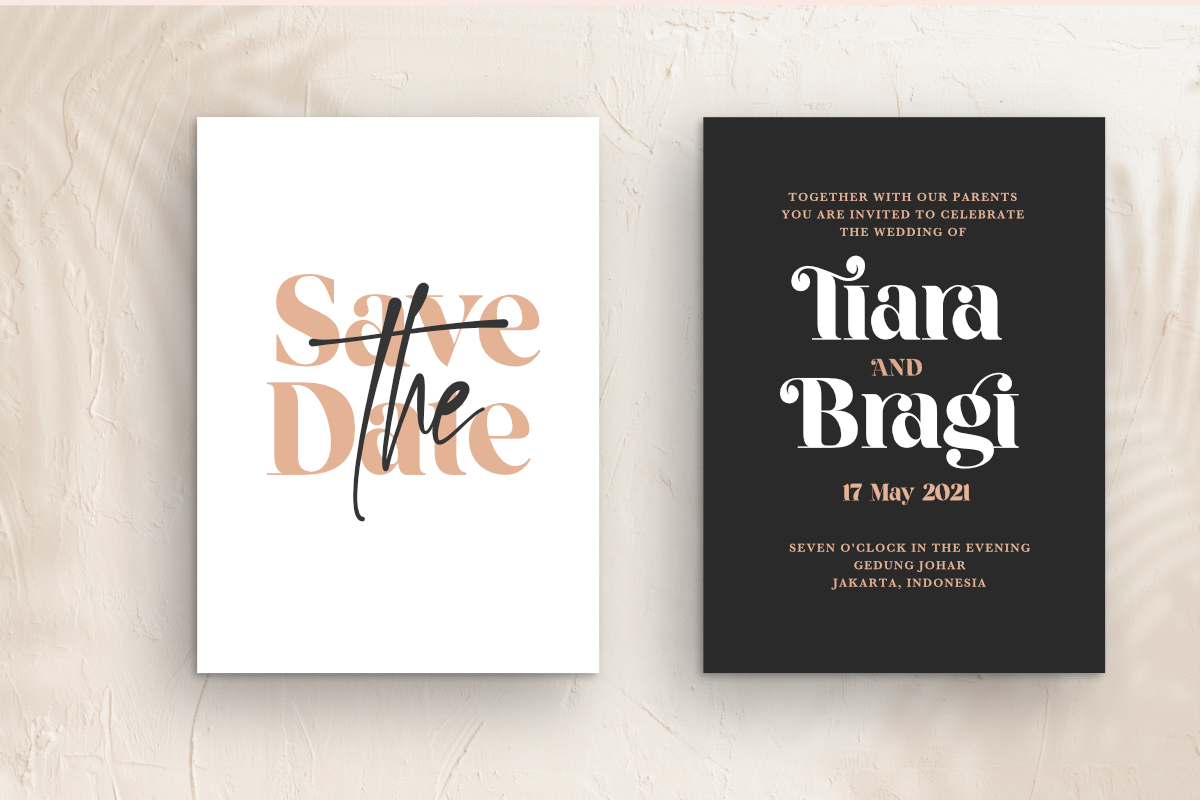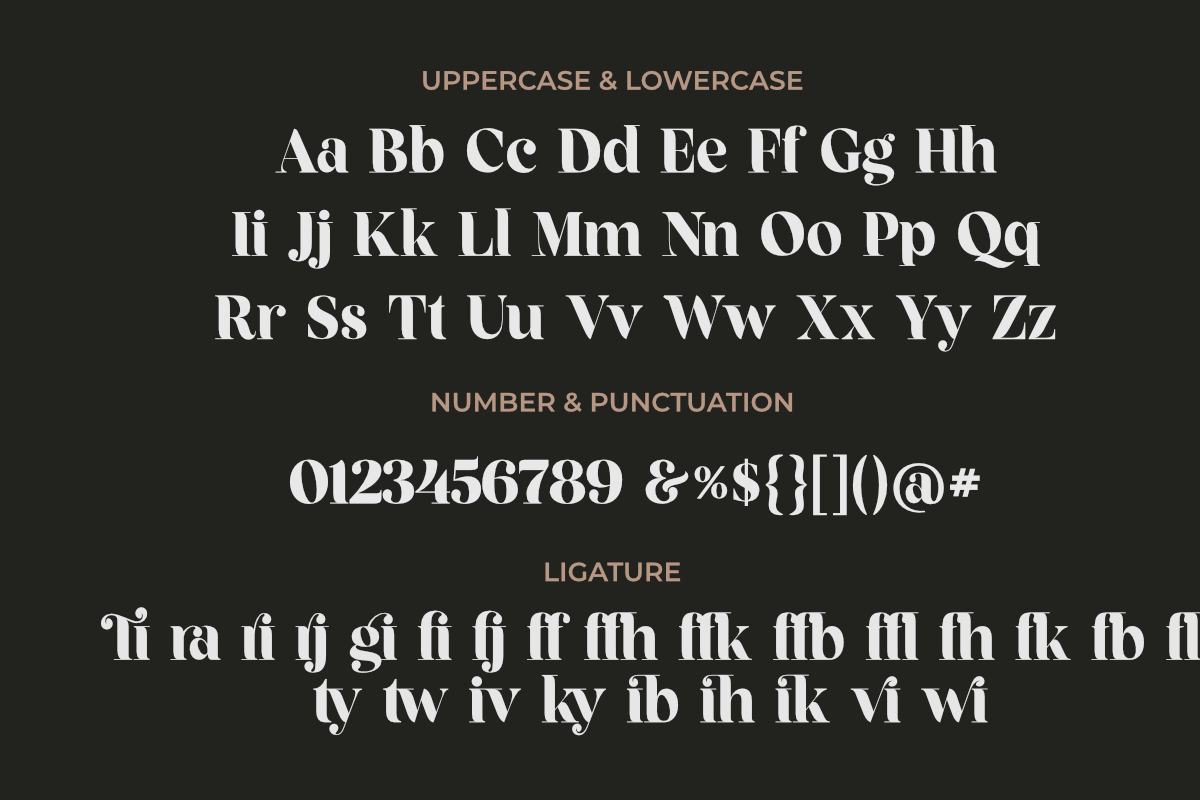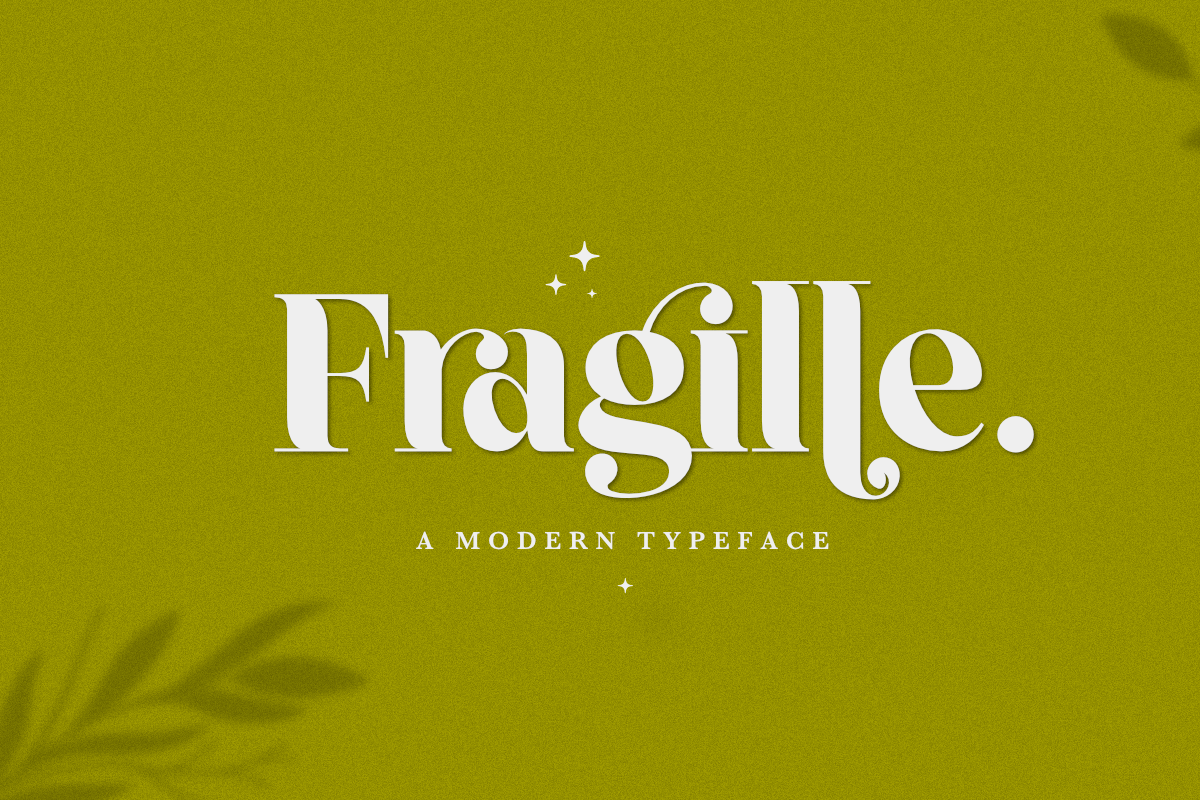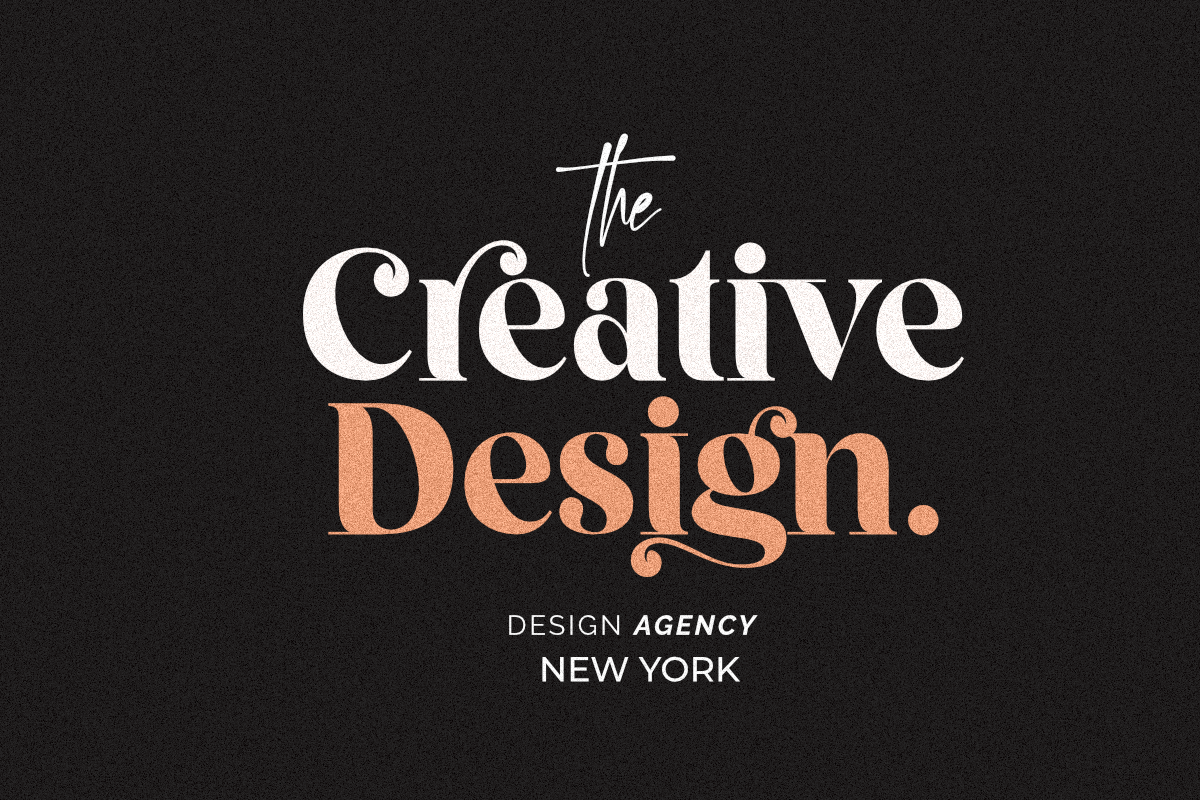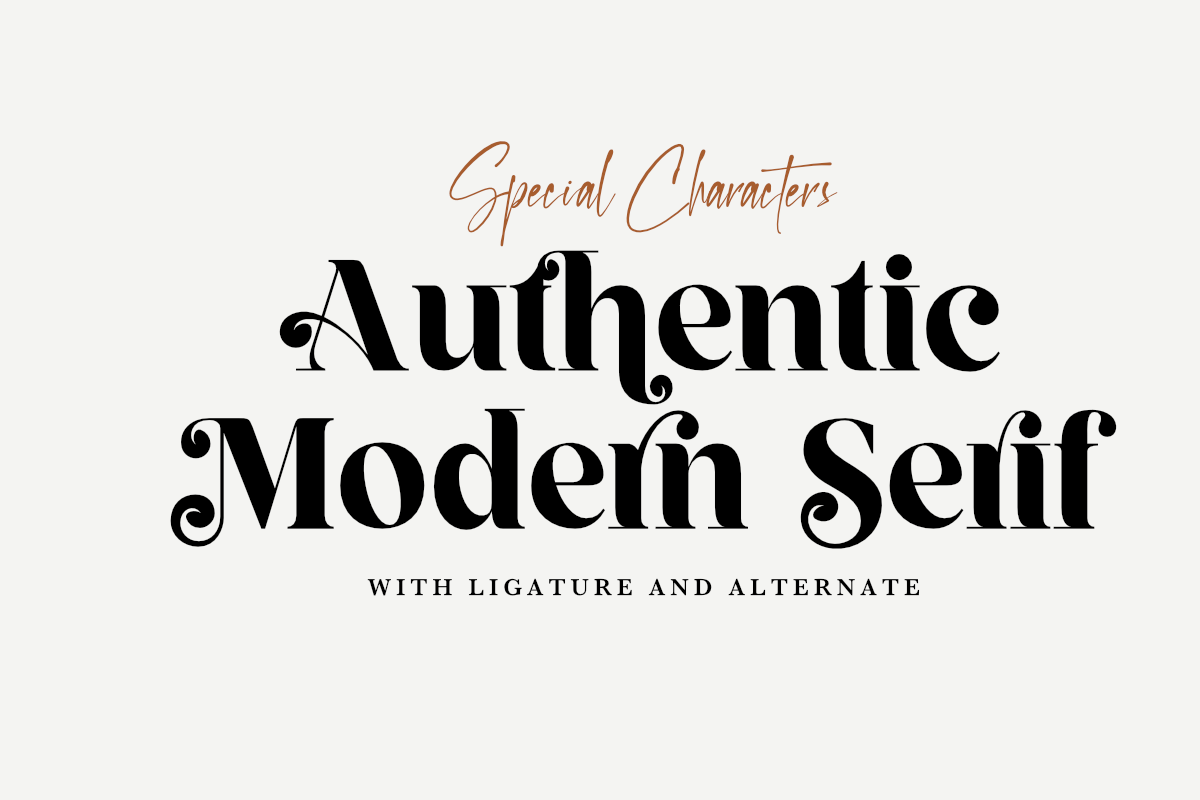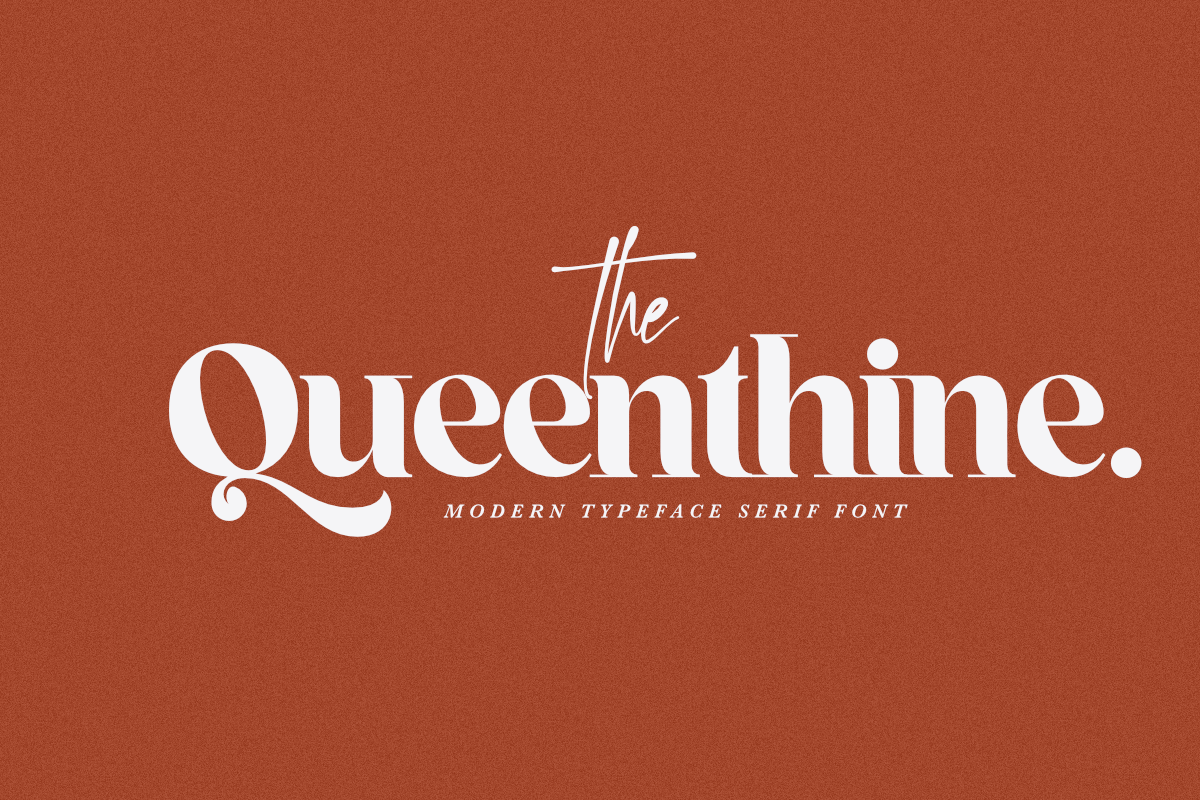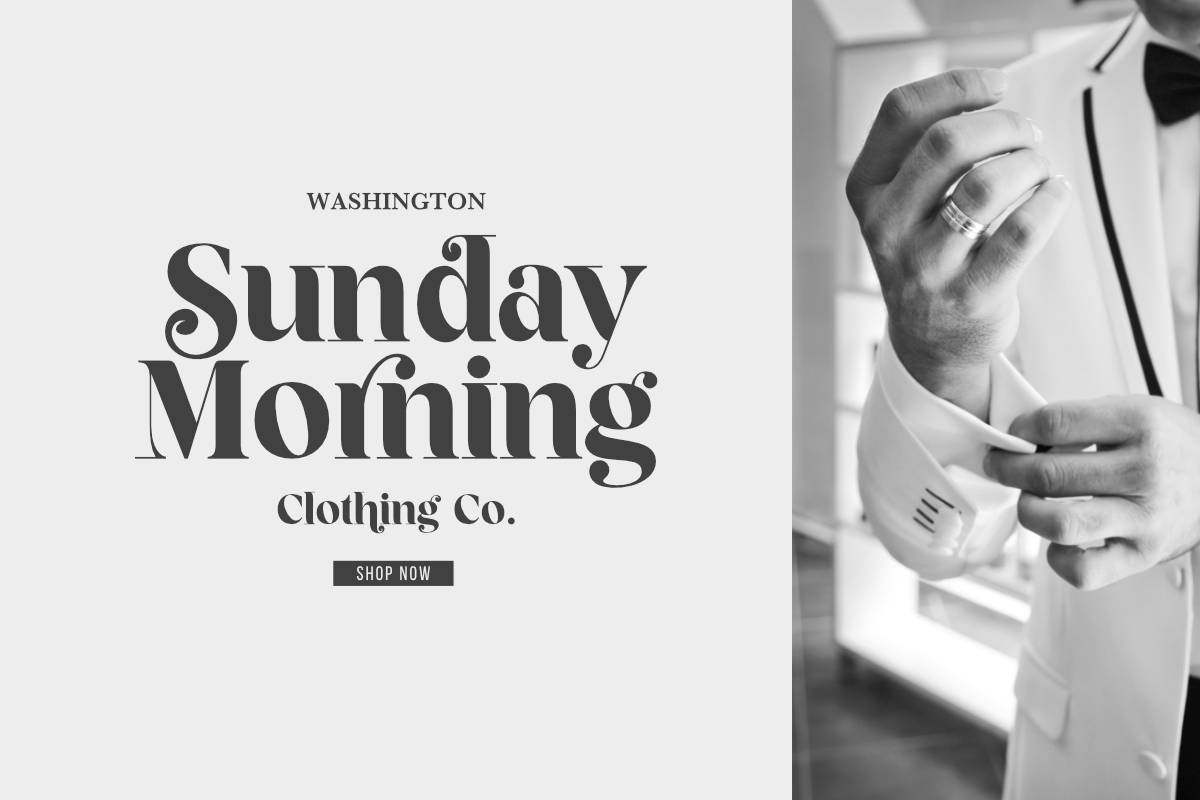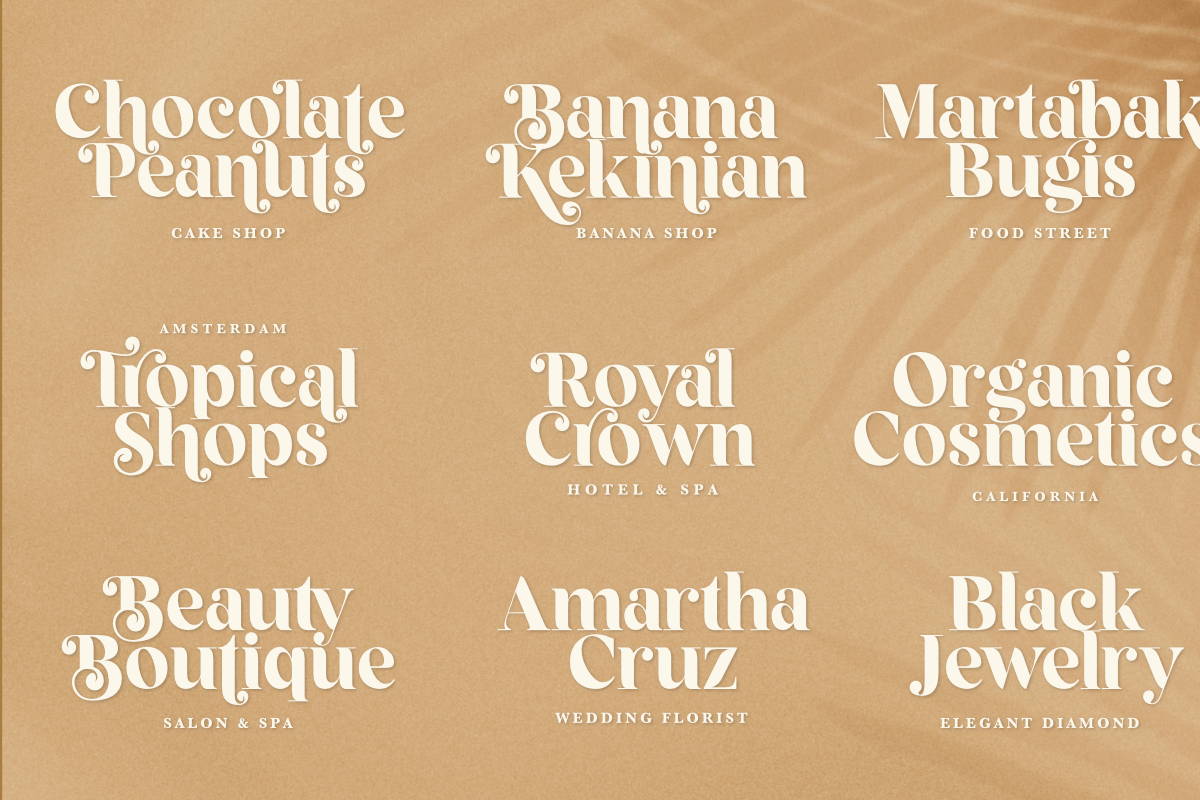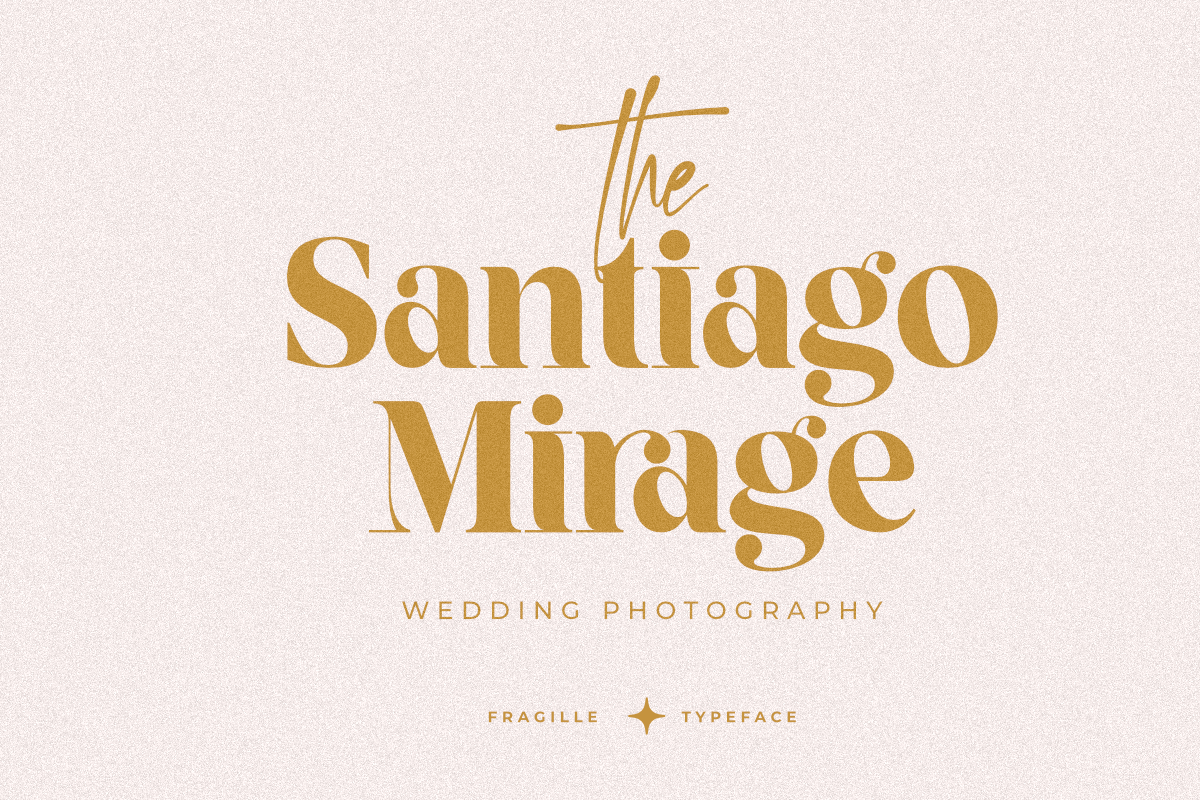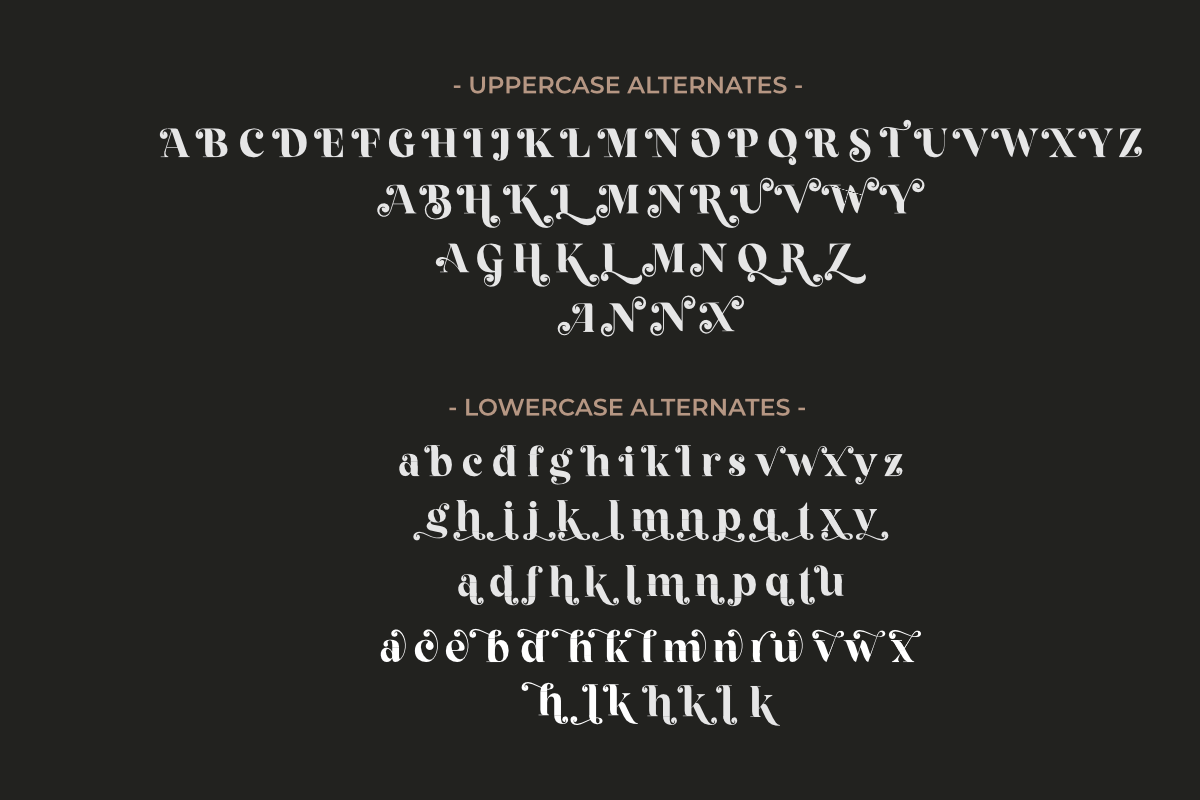
Fragille Modern Serif
Fragille – Modern serif typeface
This font is great for designing elegant logos, quotes, magazine covers, wedding cards, invitations, and brands. Its highly contrasting lines are best used in headlines and projects of a large type. Fragille adds timeless beauty, heavenly curves, and a classic look to any project.